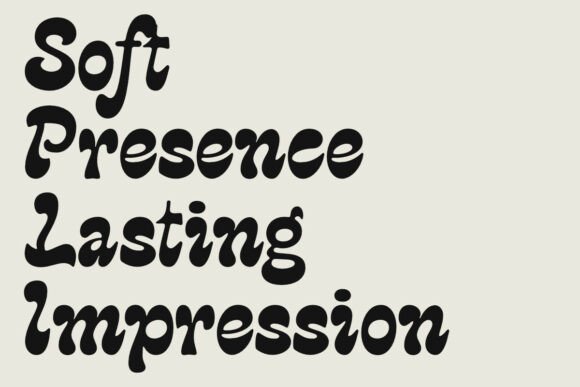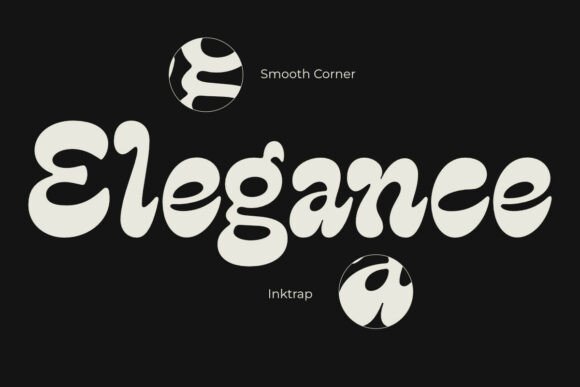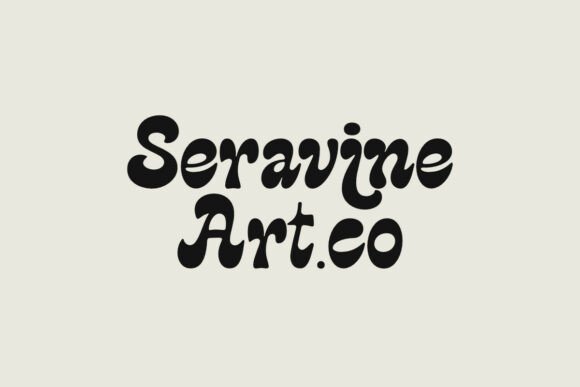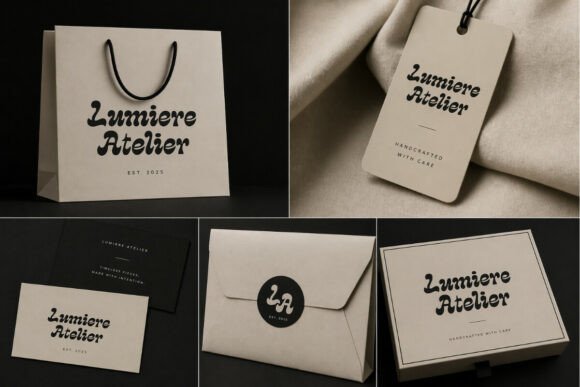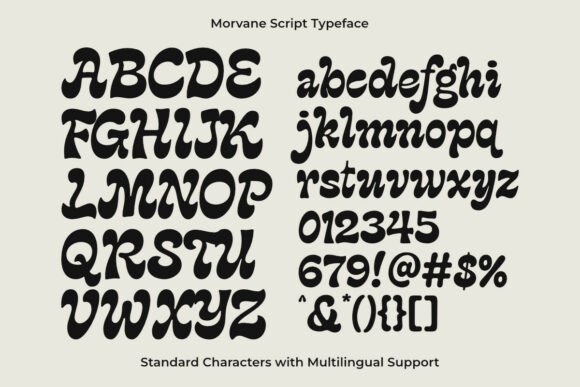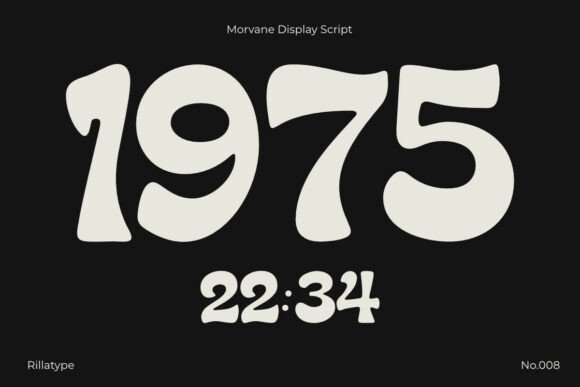
Introduction to Morvane Font
Do you remember the thrill of flipping through vinyl records, admiring the colorful artwork and typography that adorned each sleeve? For many creatives, this nostalgic experience is a powerful trigger, inspiring new ideas and sparking imagination. The Morvane Font is a love letter to this bygone era, distilling the essence of 1970s style into a stunning display typeface that’s as versatile as it is sophisticated.
With its unique blend of high-contrast letterforms, flowing curves, and liquid structure, Morvane Font is the perfect design resource for creatives seeking to infuse their projects with a touch of retro glamour. Whether you’re working on a high-end lifestyle magazine, an independent fashion brand, or a boutique hospitality identity, this font is sure to elevate your design to new heights – all with a free download, and even with a transparent background for seamless integration.
Key Features of Morvane Font
- High-quality design suitable for creative projects, offering a unique and elegant aesthetic.
- Supports a wide range of languages, including Latin, Cyrillic, and Greek alphabets, making it a versatile design tool.
- Unique characteristics include subtle texture and nuanced line variations, adding depth and visual interest to designs.
Honest Review: Morvane Font
I recently came across the Morvane Font, a free download that’s quickly become a design resource I turn to for my creative projects. ✨ One of the things that stands out about this font is its versatility – it’s perfect for use in both digital and print applications.
The font’s high quality is evident from the moment you open it up. The transparent background allows for seamless integration with other design elements, making it a great choice for designers who value flexibility.
- May not be suitable for all types of design projects (e.g. formal, corporate)
- Some users may find the font’s style too playful or whimsical
Overall, I’m impressed with the Morvane Font. While it may not be the best choice for every design project, it’s a great resource to have in your toolkit – and the free download makes it an easy addition to any design library. ⚠️ Just be aware of the limitations mentioned above, and you’ll be all set to create some amazing designs with this font!
Common Use Cases for Morvane Font
The Morvane Font is a versatile design resource that can be used in a variety of creative projects, including logos, business cards, brochures, and social media graphics. Its high-quality design and transparent background make it an ideal choice for designers looking to create professional-looking designs.